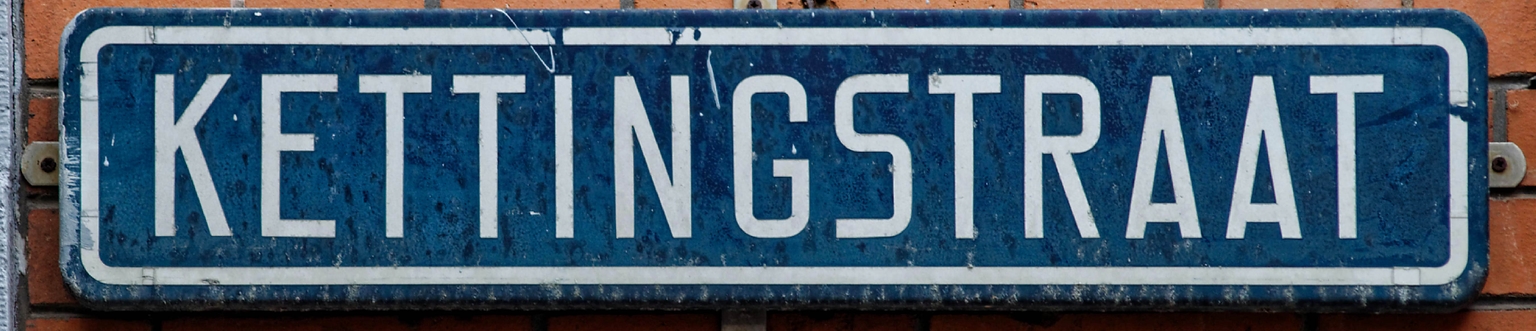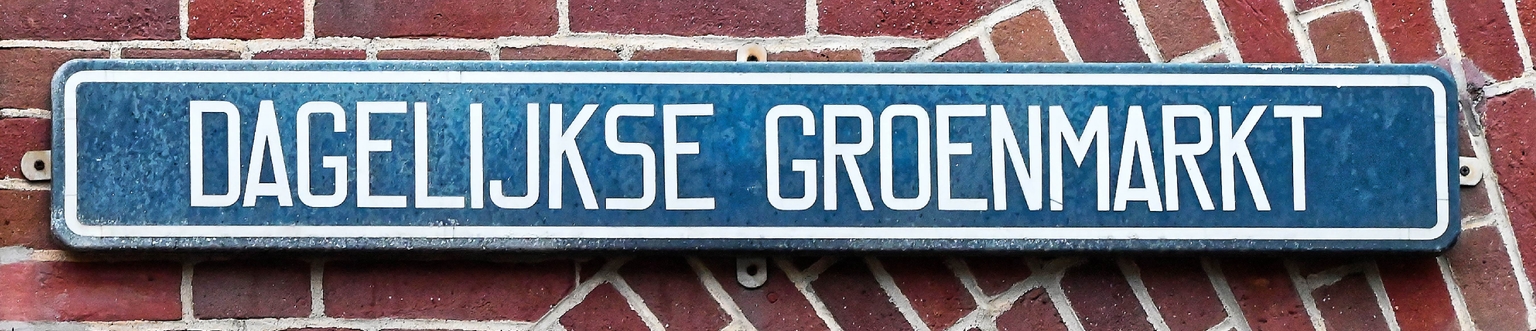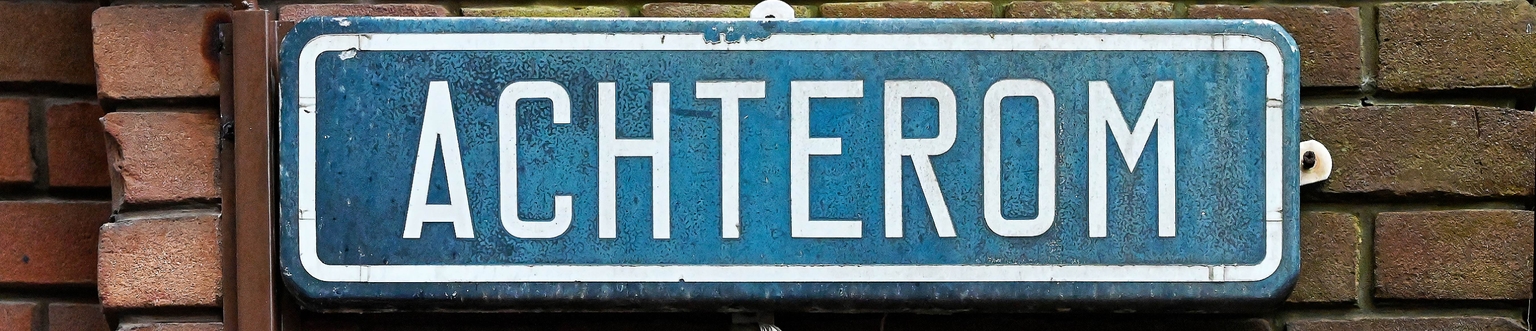
Ooievaar
Ooievaar is a slightly constructivist sans typeface designed by Ramiro Espinoza, based on the distinctive street name signage found throughout The Hague. This technical-looking alphabet, with its clean lines and utilitarian simplicity, has long been a quiet but defining element of the city’s visual identity. Designed for legibility and clarity in the urban environment, its no-nonsense forms reflect the spirit of mid-century modernist design.
With Ooievaar, Espinoza pays tribute to this understated typographic system, carefully translating its character into a complete and contemporary digital typeface. Its squarish forms, compressed proportions, open counters, and restrained rhythm make it ideal for signage, editorial design, posters, websites, and visual identities that demand precision and clarity.
Named after the Dutch word for “stork”—the emblem of The Hague—Ooievaar is more than a revival; it’s a celebration of civic design and the role typography plays in shaping public space. Now available through Brutal Types, it brings a piece of The Hague’s street-level heritage into the hands of today’s designers.